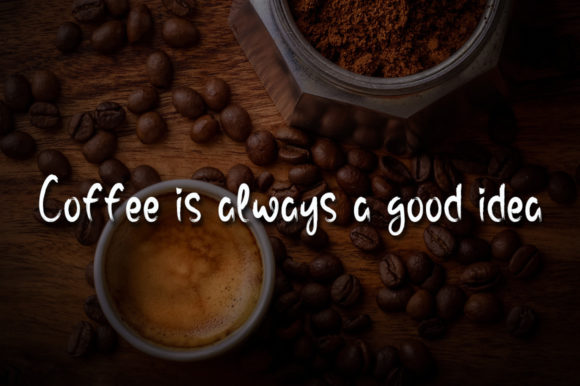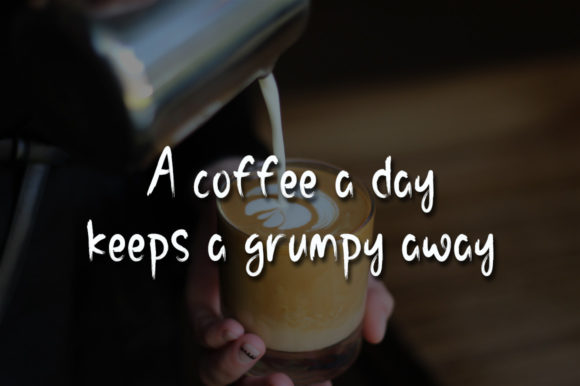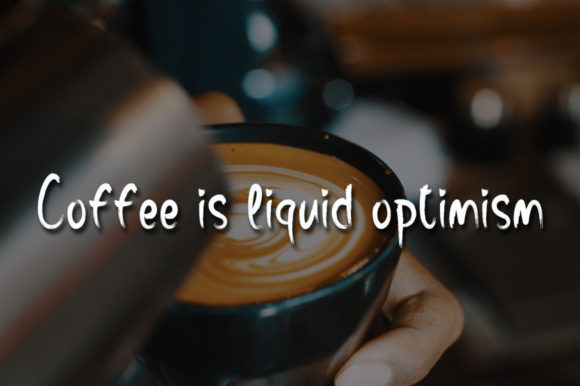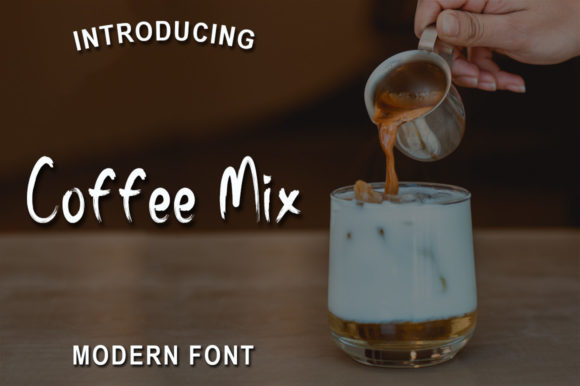
Coffee Mix Font: Elevate Your Designs with a Cool and Modern Display Font
Are you tired of using the same old fonts in your designs? Look no further than Coffee Mix Font, a modern and stylish display font that’s sure to take your creations to the next level. In this article, we’ll dive into the features and benefits of Coffee Mix Font, and explore how it can enhance your font library and design workflow.
What is Coffee Mix Font?
Coffee Mix Font is a cool and modern looking display font that’s perfect for designers, crafters, and anyone looking to add a touch of sophistication to their work. With its unique and stylish design, Coffee Mix Font is sure to stand out from the crowd and make your designs shine.
Key Features of Coffee Mix Font
- Modern and stylish design: Coffee Mix Font boasts a sleek and contemporary design that’s perfect for modern designs and projects.
- Versatile: Whether you’re working on a logo, branding project, or social media graphics, Coffee Mix Font is versatile enough to fit any topic or theme.
- Easy to read: Despite its stylish design, Coffee Mix Font is easy to read and understand, making it perfect for use in a variety of contexts.
- High-quality: Coffee Mix Font is a high-quality font that’s designed to deliver crisp and clear results, even at small sizes.
Benefits of Using Coffee Mix Font
So why should you choose Coffee Mix Font for your design projects? Here are just a few benefits of using this amazing font:
- Enhance your designs: With its modern and stylish design, Coffee Mix Font can elevate your designs and give them a professional look and feel.
- Stand out from the crowd: Coffee Mix Font is a unique and distinctive font that’s sure to help your designs stand out from the crowd.
- Save time: With Coffee Mix Font, you can save time and effort in your design workflow, as it’s easy to use and customize.
- Increase engagement: By using a stylish and modern font like Coffee Mix Font, you can increase engagement and attract more attention to your designs.
Who Can Benefit from Coffee Mix Font?
Coffee Mix Font is perfect for a wide range of designers, crafters, and professionals, including:
- Graphic designers: Whether you’re working on logos, branding projects, or social media graphics, Coffee Mix Font is a great addition to your font library.
- Crafters: If you’re a crafter or maker, Coffee Mix Font is perfect for use in your handmade projects, such as signs, cards, and other paper crafts.
- Digital artists: Coffee Mix Font is also great for digital artists who want to add a touch of style and sophistication to their work.
How to Use Coffee Mix Font
Using Coffee Mix Font is easy and straightforward. Here are a few tips to get you started:
- Experiment with different sizes and styles: Coffee Mix Font comes in a range of sizes and styles, so don’t be afraid to experiment and find the one that works best for your design.
- Pair with other fonts: Coffee Mix Font pairs well with other fonts, so try combining it with other fonts to create a unique and stylish look.
In conclusion, Coffee Mix Font is a cool and modern looking display font that’s perfect for designers, crafters, and anyone looking to elevate their designs. With its stylish design, versatility, and ease of use, Coffee Mix Font is sure to become a valuable addition to your font library. So why wait? Download Coffee Mix Font today and take your designs to the next level!